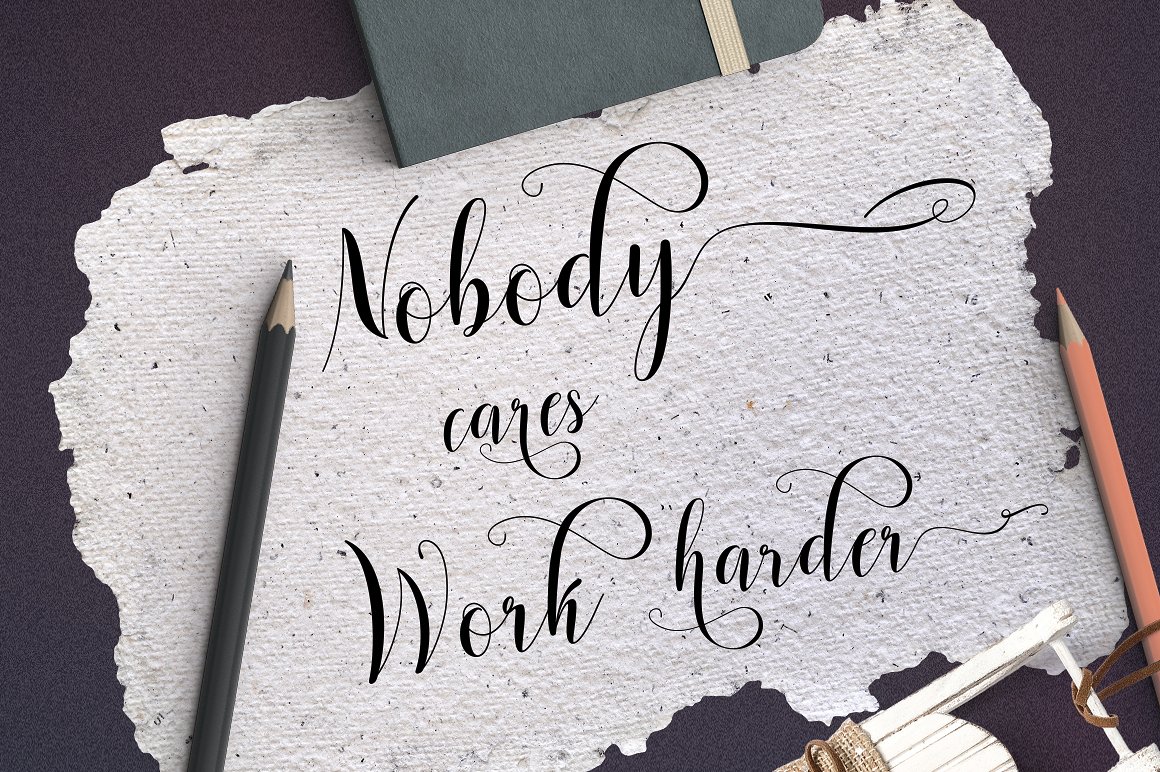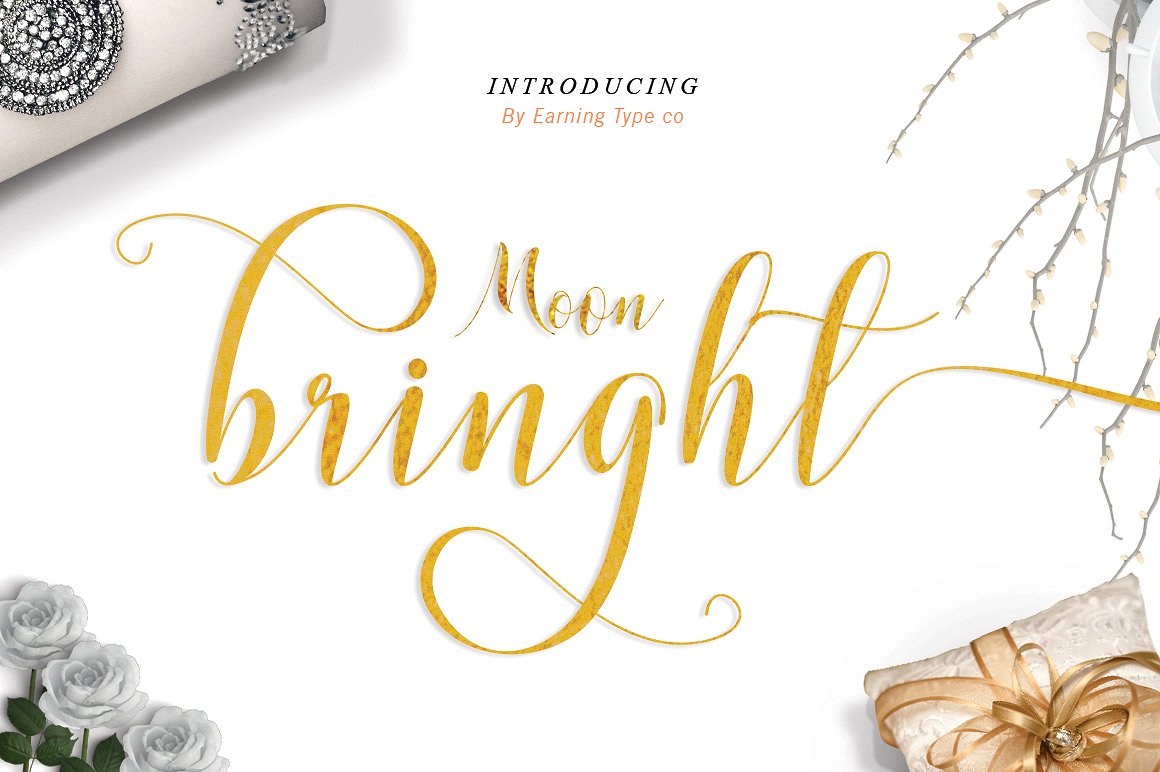
Moonbringht
Moonbringht Script Font
Moonbringht script fresh and modern new script with calligraphy style handmade, decorative character and basic dance! So beautiful on the invitations such as greeting cards, branding material, business cards, quote, posters, and much more !! Moonbringht script comes with 496+ glyphs. There is also provided alternative style Uppercase and lowercase letters and more swashes to get the look of a star. Alternate characters are divided into several types Open features such as Swash, Stylistic Sets, Stylistic Lieu, Contextual Alternates. Open Type features can be accessed using Open Type intelligent program such as Adobe Illustrator, Adobe InDesign, Adobe Photoshop Corel Draw version X, and Microsoft Word. Fonts have given PUA Unicode (special code font). so that all the alternative characters can be easily accessed in full by a craftsman or designer.